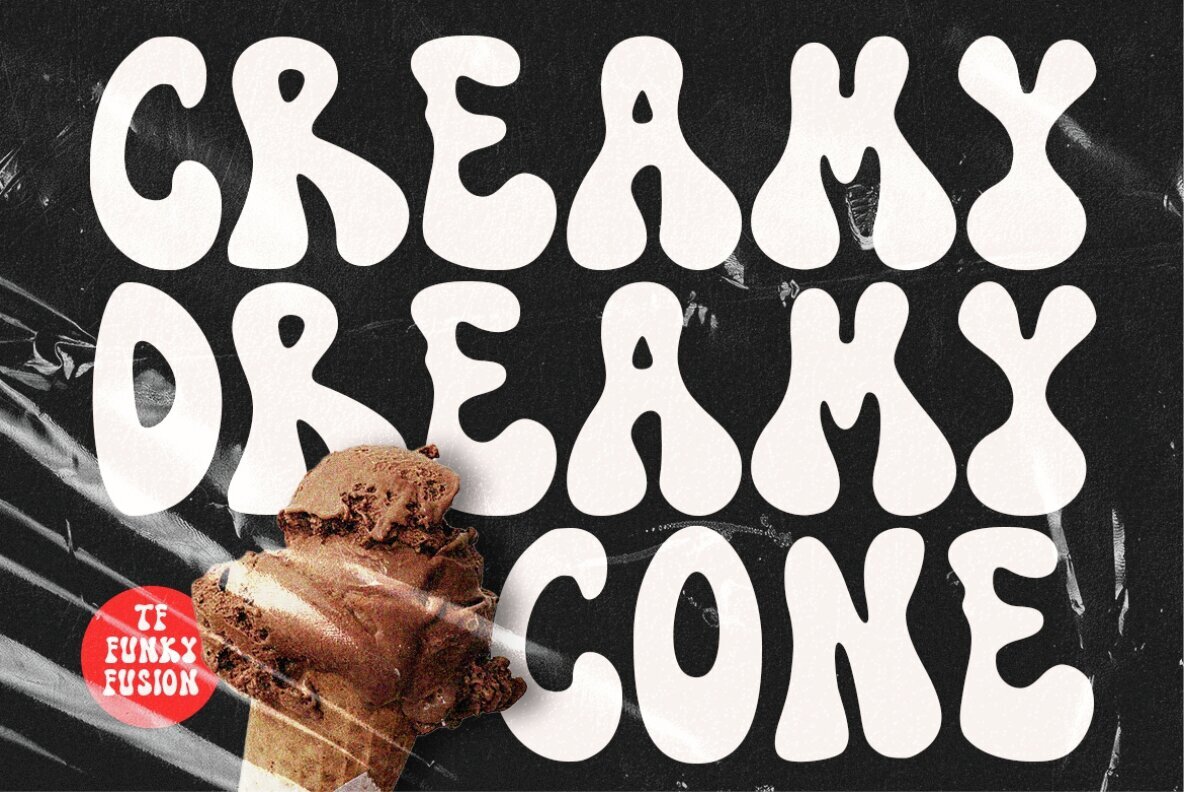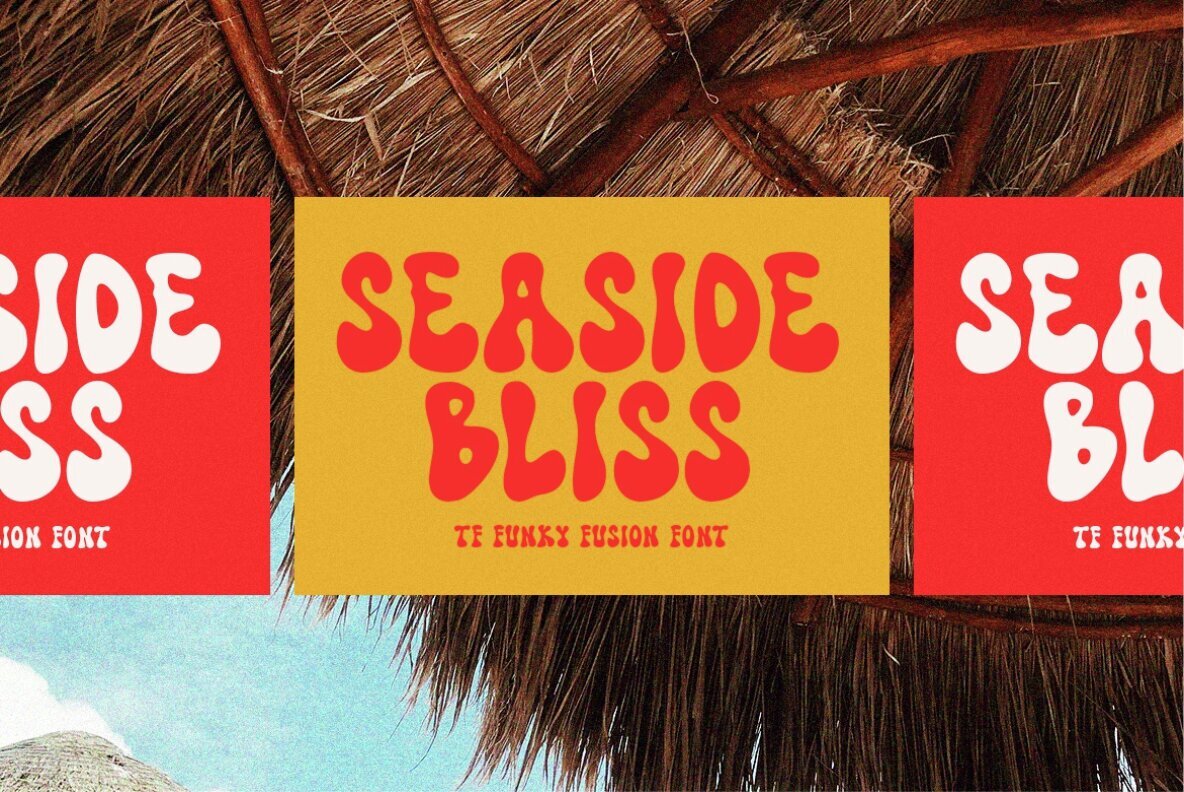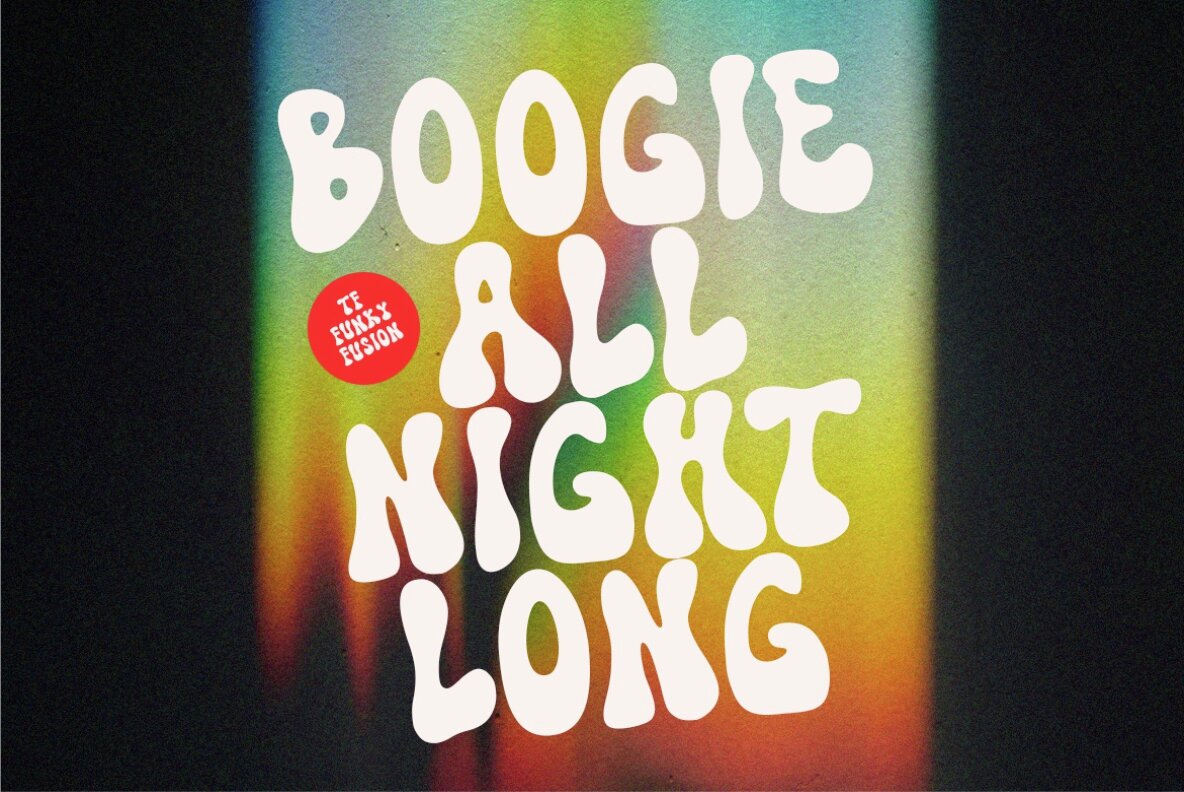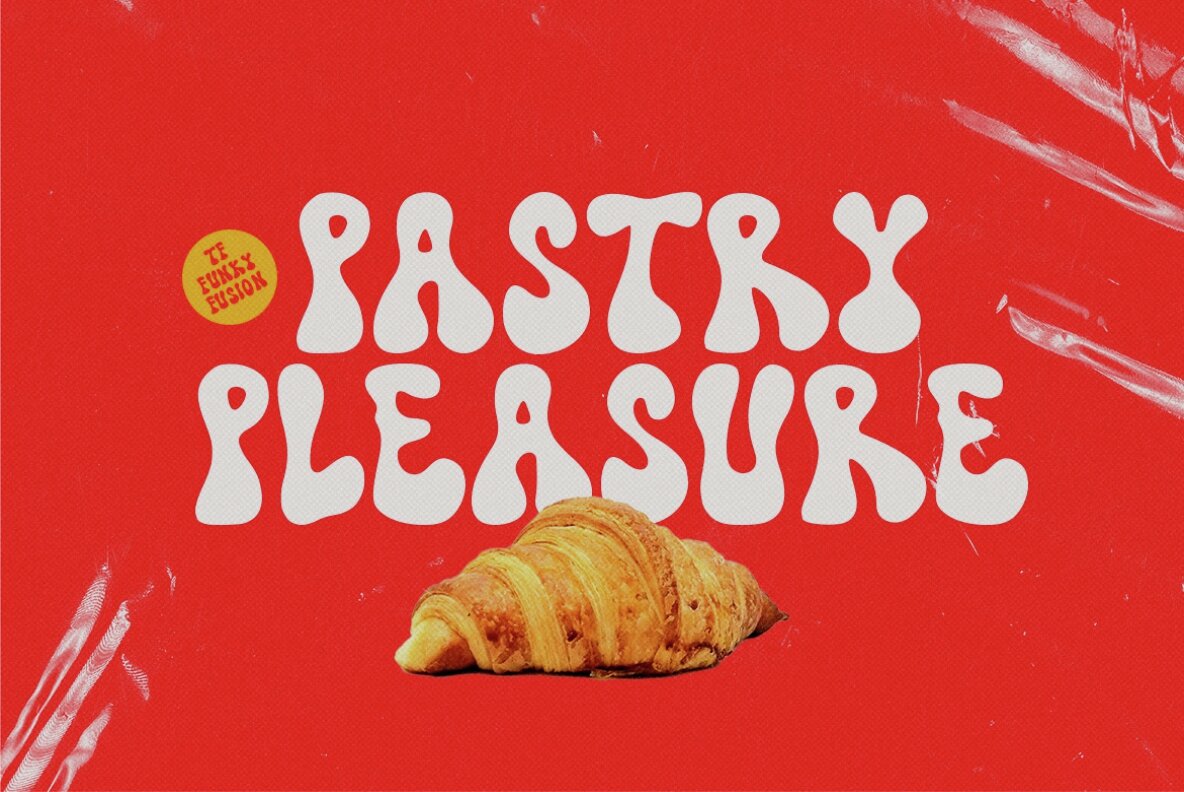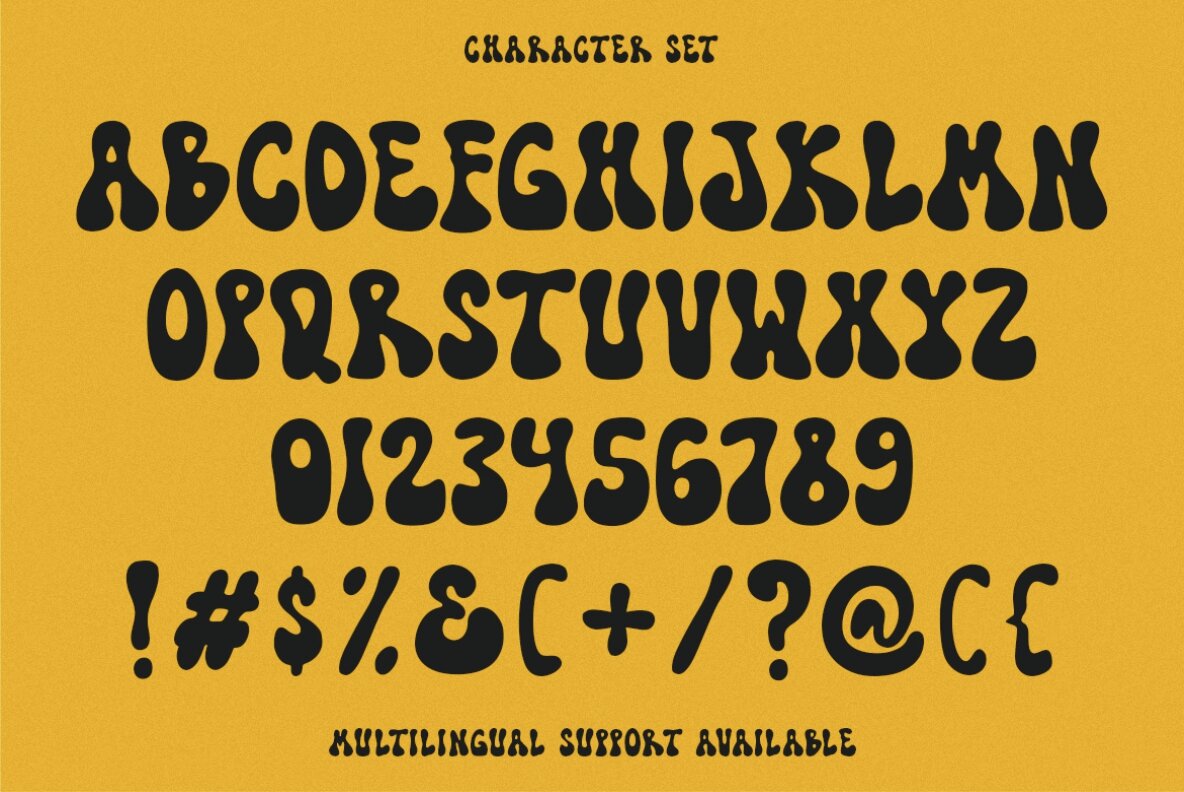
TF Funky Fusion Font
TF Funky Fusion – Display Font By Teenage Foundry Introducing our latest font creation – a groovy typeface that’s sure to transport you back to the funky, psychedelic era of the 60s and 70s! With its bold, playful style and unique character, this font is perfect for adding a retro feel to your design projects. This font is incredibly versatile and can be used for a range of design projects, including posters, album covers, branding, and more. Its groovy style gives it a unique character that’s sure to make an impact.